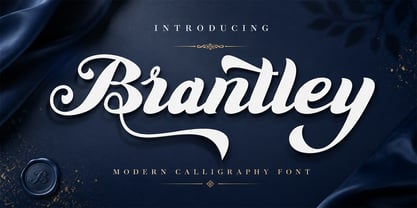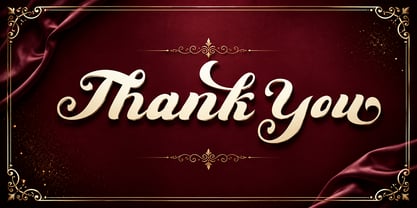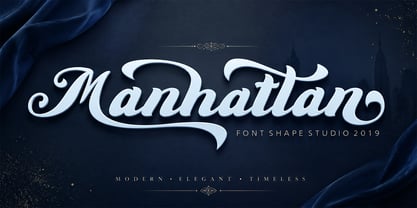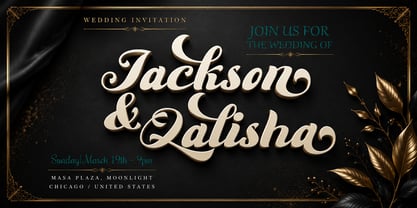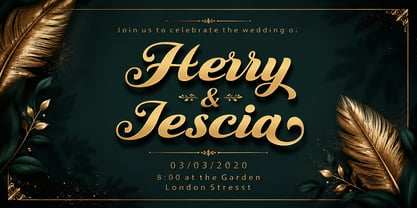
Brantley Script
von Shape Studio
Die Schriftfamilie Brantley Script wurde von Teuku Saifullah entworfen und von Shape Studio veröffentlicht. Brantley Script enthält 1 Stile.
Brantley Script is a romantic and vintage script. It Can be used for various purposes such as logos, wedding invitations, t-shirts, letterhead, signage, news, posters, badges and more.
Brantley Script features 300+ glyphs and extruded fonts, alternative characters, binders.
Designer: Teuku Saifullah
Herausgeber: Shape Studio
Foundry: Shape Studio